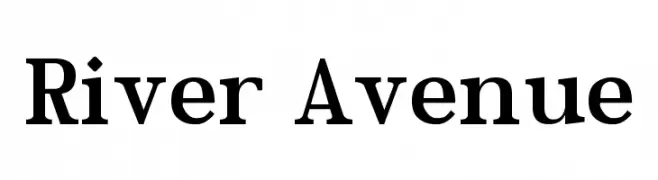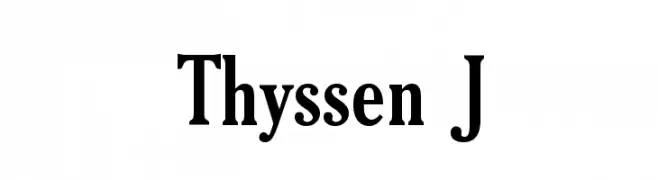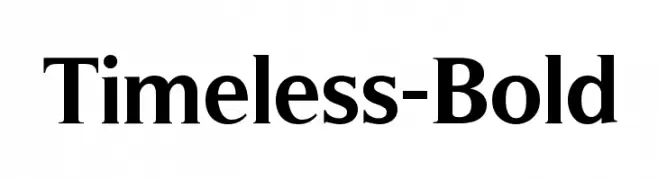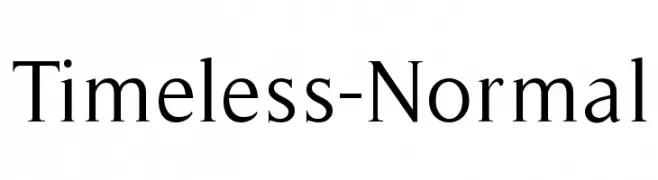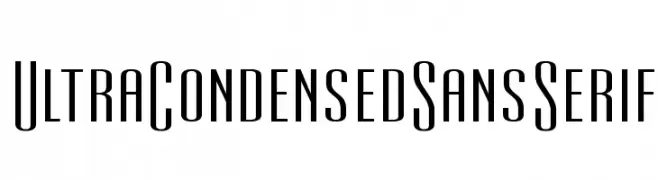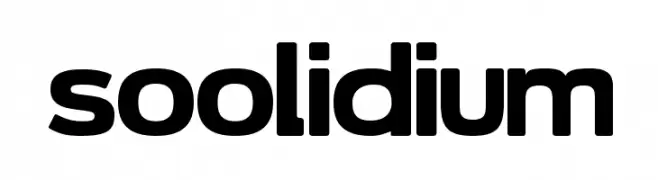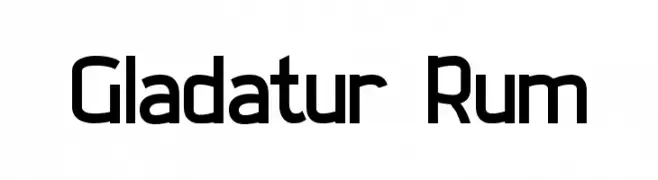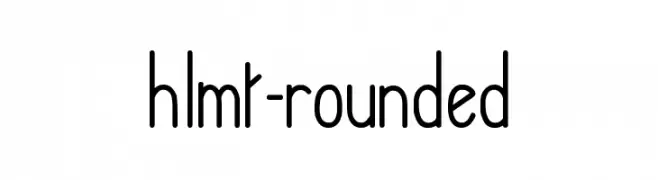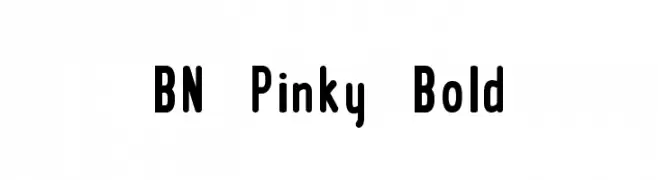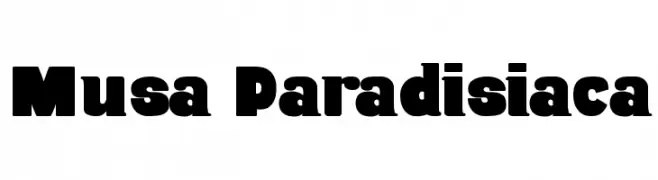
An elegant italic serif font with flowing curves and refined style.
A bold, classic serif font with strong, elegant strokes.
A vintage serif font with bold, elegant characters and unique flourishes.
A bold, vintage-inspired serif font with thick strokes and a compact design.
A classic serif font with moderate contrast and pronounced serifs, offering elegance and readability.
A classic serif font with balanced readability and modern appeal.
A bold, classic serif font with strong, elegant strokes.
A classic serif font with elegant strokes and balanced proportions.
A modern, ultra-condensed sans-serif font with sleek, narrow letterforms.
A bold, modern sans-serif font with geometric influences and rounded edges.
A modern, geometric font with bold, clean lines and a structured appearance.
A modern, rounded font with a clean and approachable design.
A modern, rounded sans-serif font with a friendly and approachable style.
A bold, rounded font with a playful and friendly style.
A modern, geometric sans-serif font with uniform stroke width and excellent readability.
A bold, geometric sans-serif font with a monospaced appearance.
A bold, impactful font with thick strokes and a modern-retro style.
A bold, modern font with a clean, geometric design.
A sleek, elegant italic font with thin strokes and modern appeal.
A modern, bold, and italicized font with medium contrast and a sleek, elegant style.
A modern, elegant sans-serif font with clean lines and balanced proportions.
A bold, geometric font with a modern, industrial style.
A modern sans-serif font with dotted accents and rounded edges.
A clean, modern sans-serif font with uniform stroke width and excellent readability.
A modern sans-serif font with clean lines and geometric shapes.
A tall, narrow font with tight spacing and uniform stroke width.